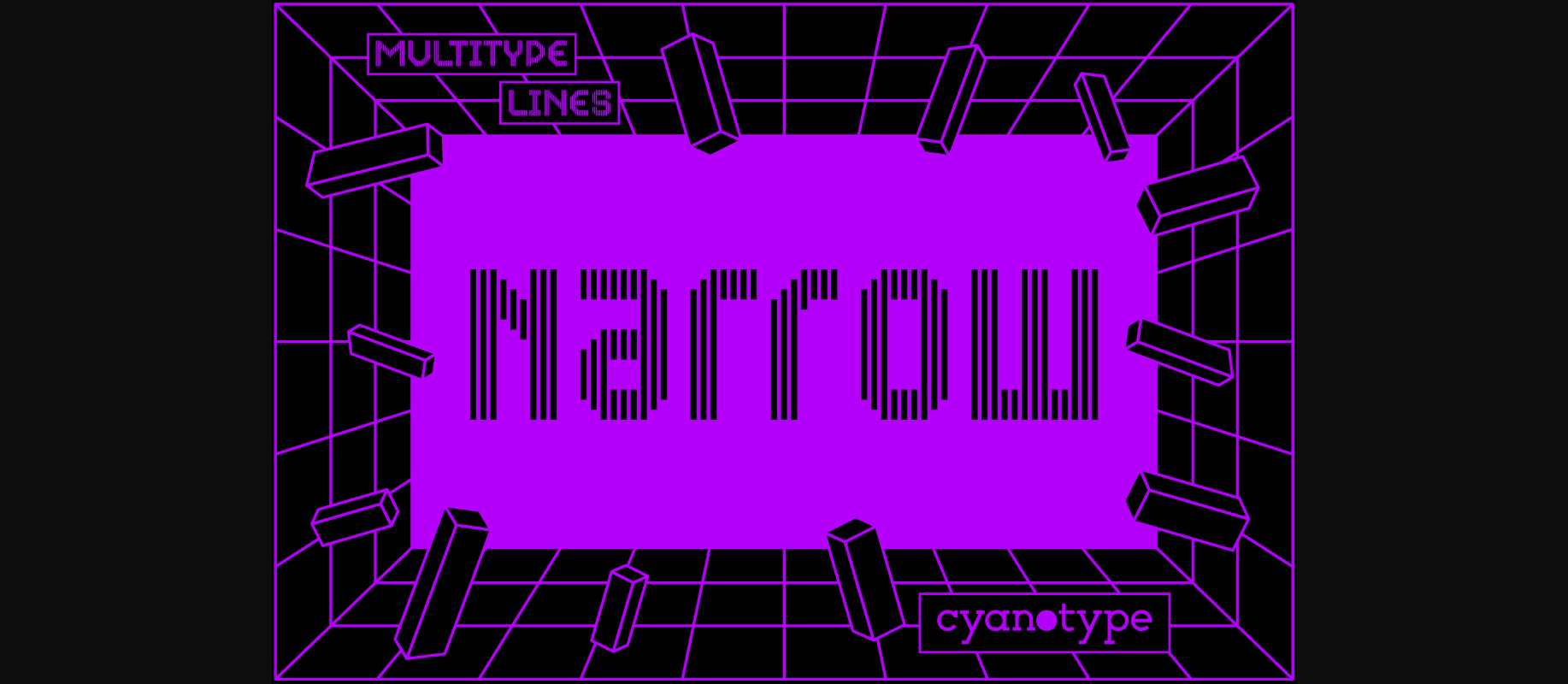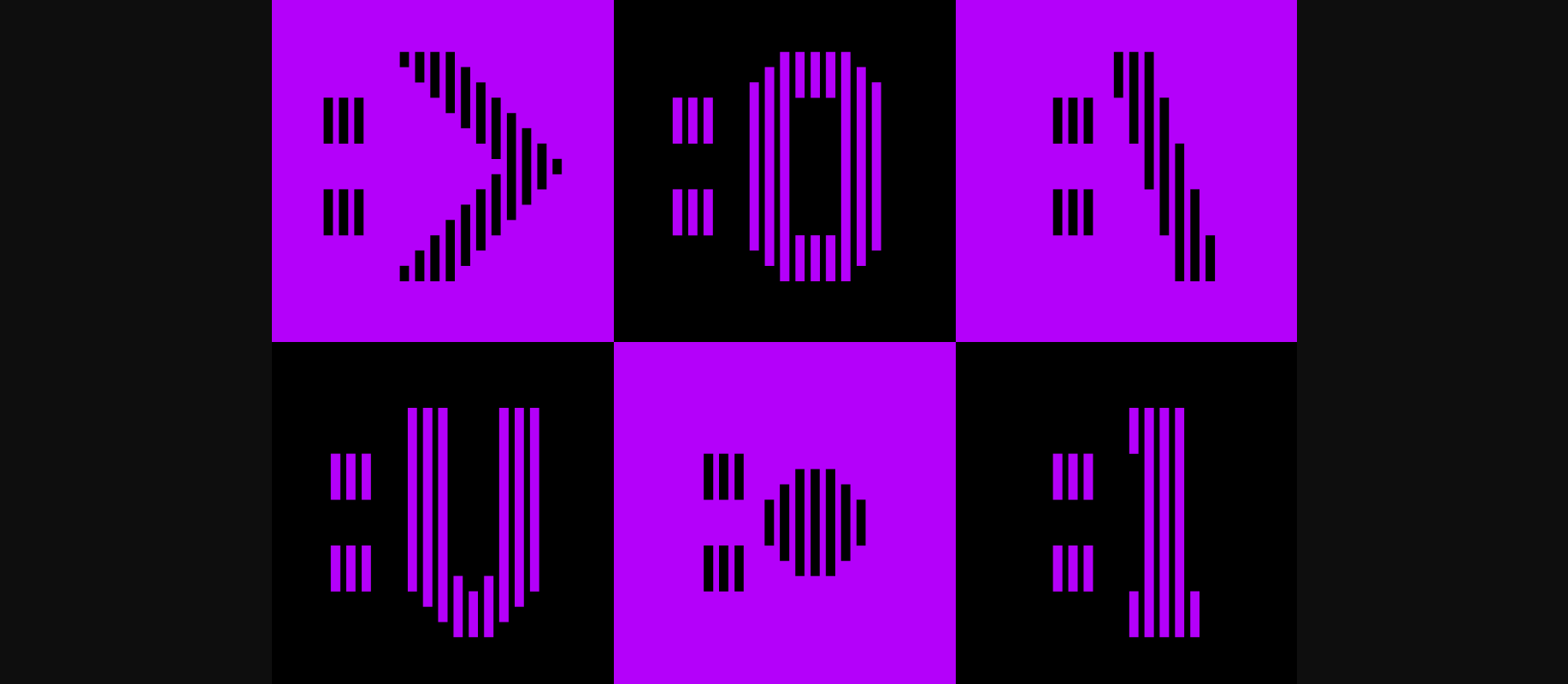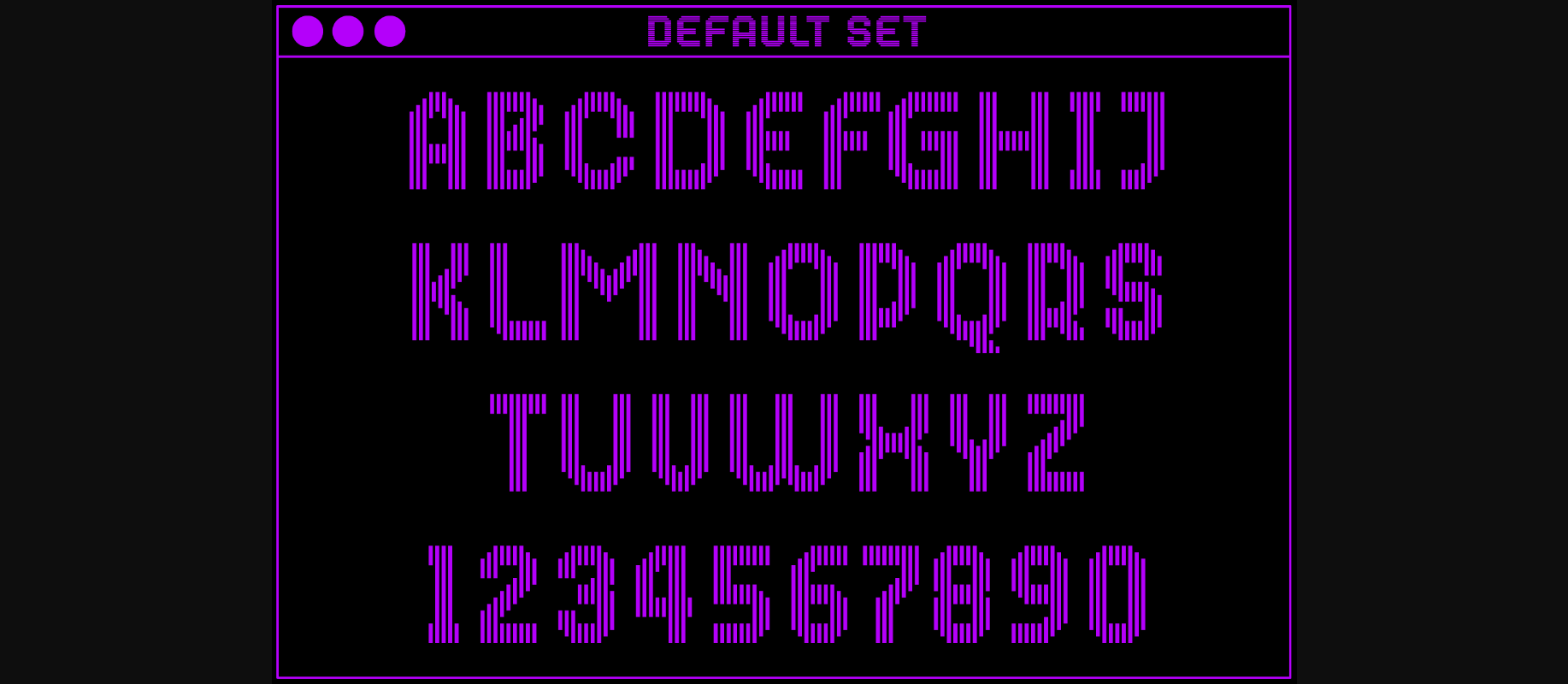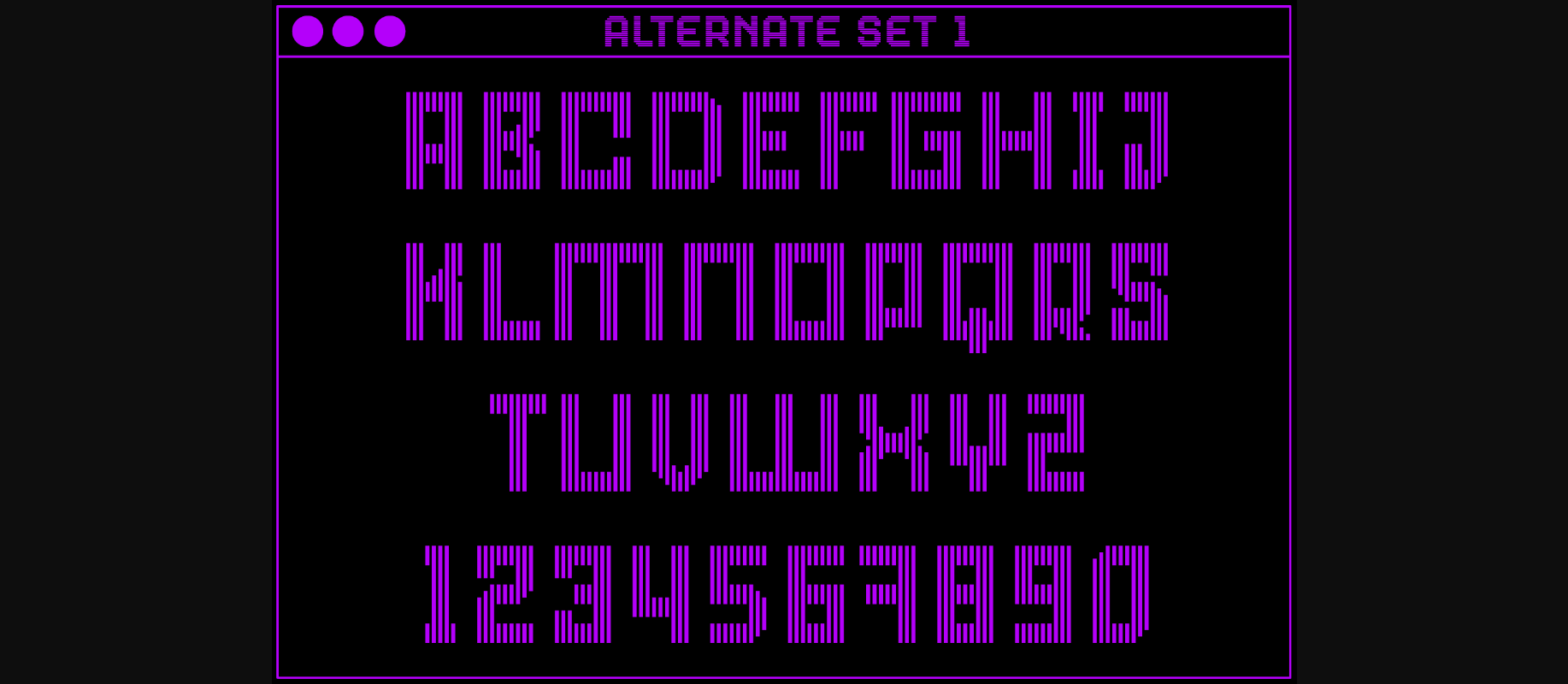
About MultiType Lines Narrow Font
MultiType Lines Narrow is a cool, uniquely shaped, pixelated decorative font. Add a distorted and trendy touch to your designs with this very unusual pixel font!